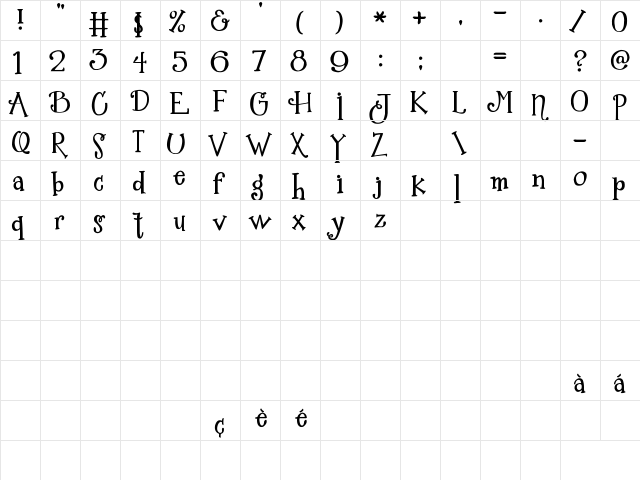
2Peas Mister Giggles 2Peas Mister Giggles
| Style | 2Peas Mister Giggles |
| Foundry | High-Logic |
| Designer | High-Logic - Erwin Denissen 1999 |
Design Context for 2Peas Mister Giggles Typeface
2Peas Mister Giggles is a composed and adaptable typeface that performs quietly and consistently across a wide range of design contexts.